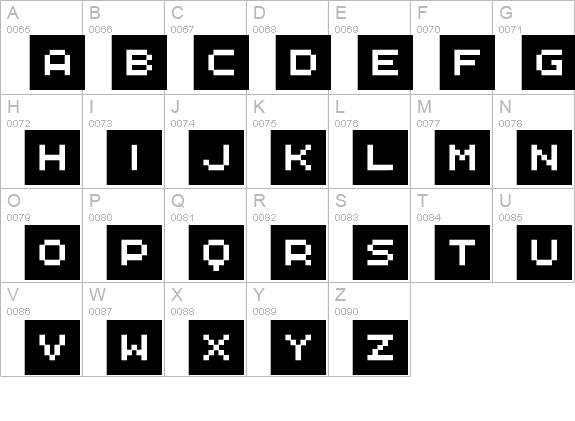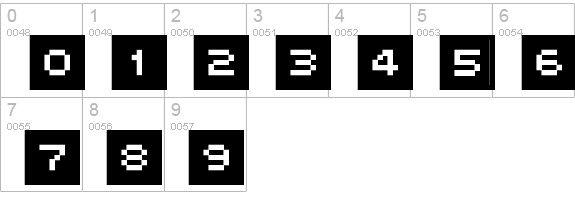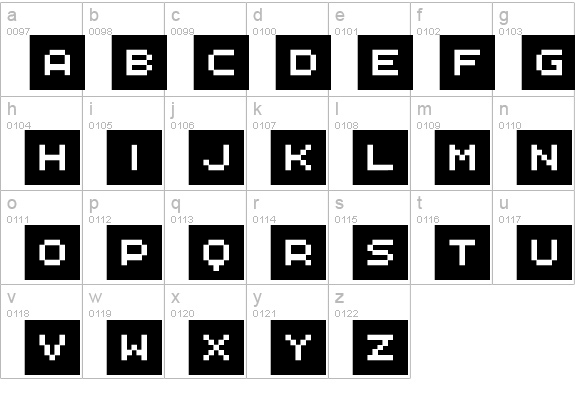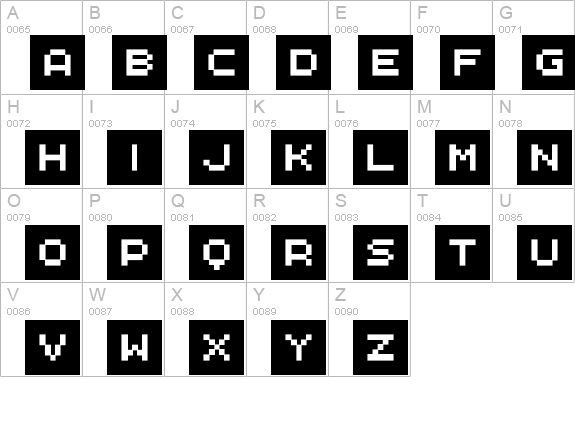
FFF Interface04 Font Details
The FFF Interface04 font is a modern and sleek typeface that exudes sophistication and style. With its clean lines and contemporary design, this font is perfect for a wide range of design projects, from branding to digital graphics. Its versatility makes it a great choice for both print and digital media. What sets FFF Interface04 apart is not just its aesthetic appeal, but also its accessibility. This font is available for free download at FontsMarket.com, making it easy for designers and creatives to access and use in their projects without any cost. Embrace the creativity and elegance of FFF Interface04 in your next design endeavor and elevate your work with this stunning font.